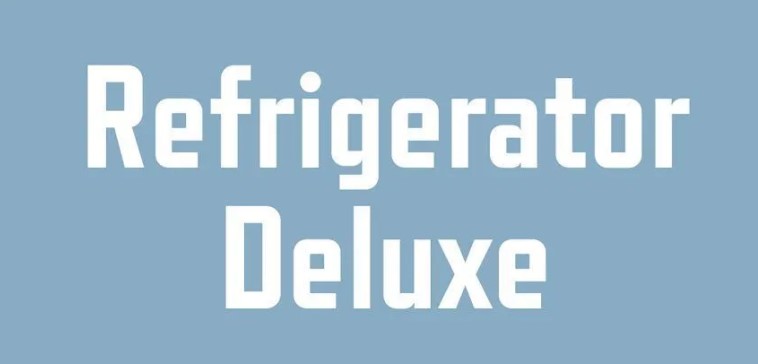
Refrigerator Deluxe Font
Refrigerator Deluxe Font is known for its bold and italic function. This typeface is also present inside the Google fonts and known as wearetrippin font. Its appearances are excessive in big sizes in interest to small. But the topography every better and reduce case letterings, numbers, and glyphs.